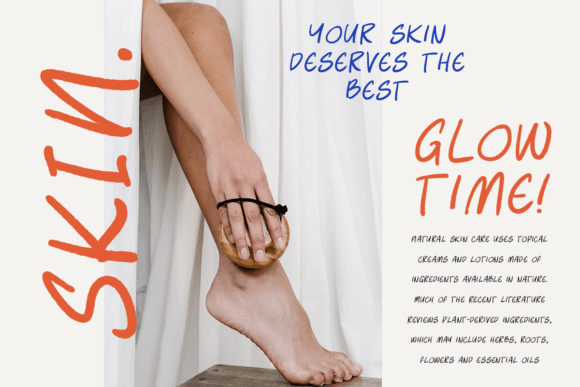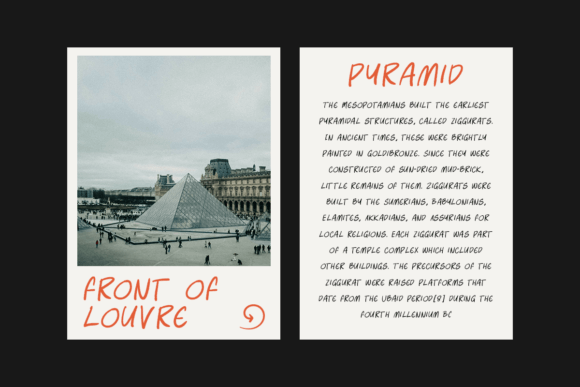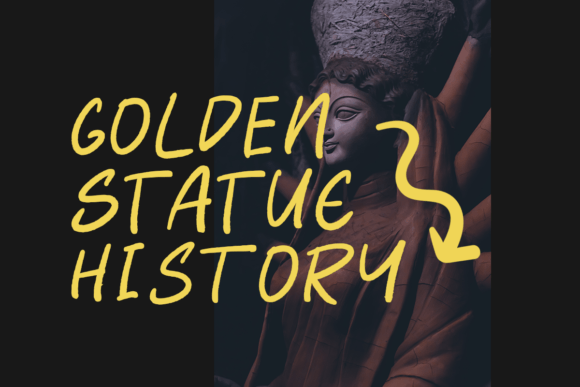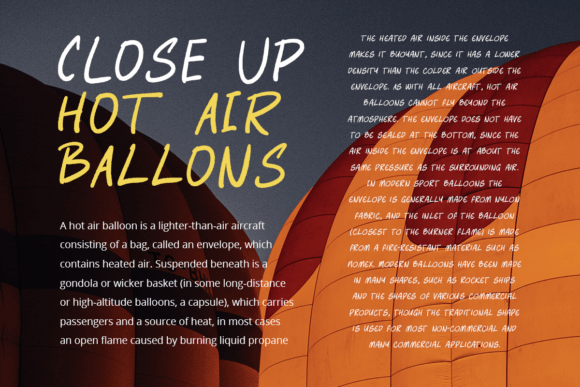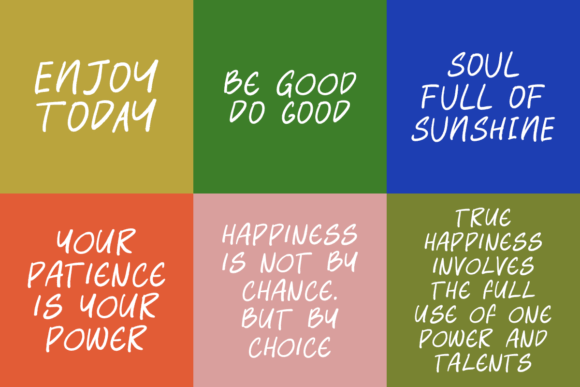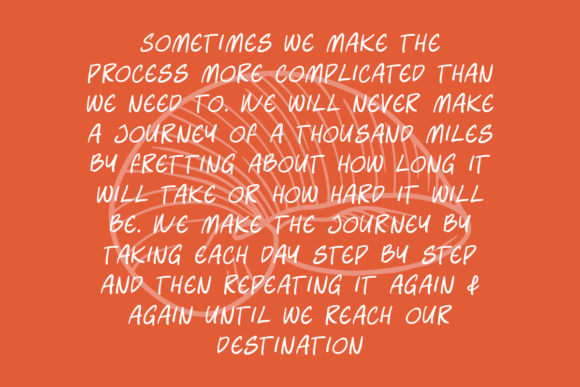
Unleash Your Inner Handwriter with Enjoy Notes Font
We’ve all been there – scribbling down ideas, brainstorming concepts, and jotting down reminders on scraps of paper. It’s in those moments of creative chaos that we often stumble upon our most brilliant ideas. But, what if you could capture that same carefree essence in your digital designs?
Enter the Enjoy Notes Font, a typographic treasure designed to mimic the look and feel of handwritten notes. With its casual, upper-case style and lower-case flair, this font is perfect for designers seeking to add a touch of personality to their projects. By incorporating Opentype double-letter ligatures, Enjoy Notes Font takes your text to the next level, making it a valuable addition to any designer’s toolkit.
- Unique Characteristics: Enjoy Notes Font features a unique, handwritten design that mimics the look of handwritten notes, making it ideal for creative projects, journaling, and personal use.
Enjoy Notes Font Review
I recently had the chance to work with the “Enjoy Notes Font” and I must say, it’s a lovely addition to any design project. ✨ One of the things that really stands out is its playful and friendly feel, making it perfect for creating engaging and approachable content.
- ✨ The font’s varied line height and spacing give it a natural, handwritten feel that adds a touch of personality to your text.
- ✨ Enjoy Notes Font comes in a range of weights, from light to bold, allowing you to customize the look to suit your design needs.
- ✨ The font is highly legible, making it suitable for body text, headings, and even display typography.
However, there are a few limitations to consider. ⚠️ One of the main issues is that the font may not be as suitable for formal or professional contexts, as its playful nature can come across as too casual.
Overall, I think Enjoy Notes Font is a great choice for designers looking to add a touch of whimsy and personality to their projects. While it may not be the best fit for every design, its unique qualities make it a standout in the right situations.
Tips for Getting the Most Out of Enjoy Notes Font
1. Experiment with different font sizes and styles to create visually appealing combinations.
2. Use Enjoy Notes Font for headings and titles to add a touch of elegance and sophistication.
3. Combine Enjoy Notes Font with other fonts to create a unique and eye-catching design.
1. Wedding invitations and stationery.
2. Branding and marketing materials.
3. Journaling and scrapbooking.
4. Digital art and illustrations.
Alternatives to Enjoy Notes Font for Designers
Lato is a modern sans-serif font that is highly legible and suitable for a wide range of design projects. It is particularly well-suited for use in digital interfaces, such as websites and mobile apps. Lato is a popular alternative to Enjoy Notes Font due to its clean and minimalist aesthetic.
Comparison: Lato is more modern and digital-friendly compared to Enjoy Notes Font, which is more suited for handwritten or note-taking purposes.
Open Sans is a clean and highly legible sans-serif font that is widely used in digital design. It is a great choice for body text and is particularly well-suited for use in long-form content, such as articles and blog posts. Open Sans is a good alternative to Enjoy Notes Font due to its simplicity and readability.
Yes, the Enjoy Notes Font is designed to be highly legible in digital environments. It’s optimized for use on screens and is compatible with a wide range of devices and operating systems. The font’s clear and concise design ensures that text remains readable even at small sizes.